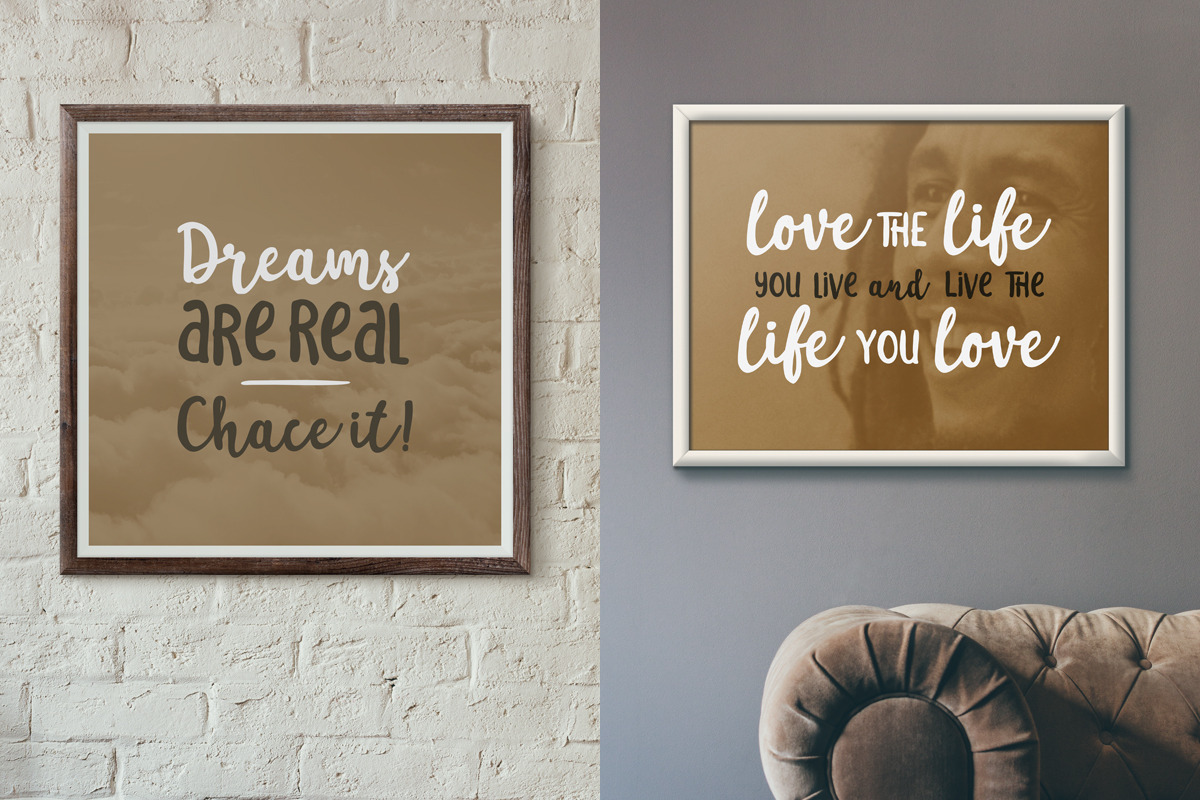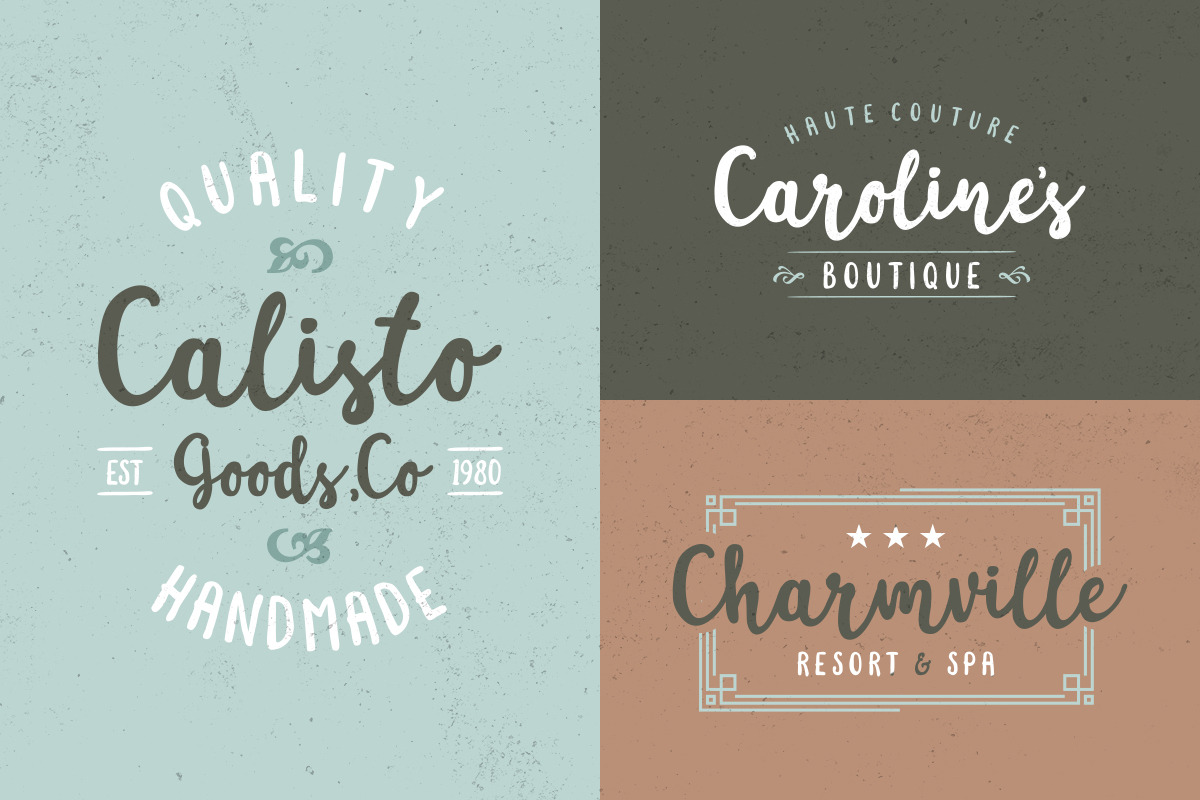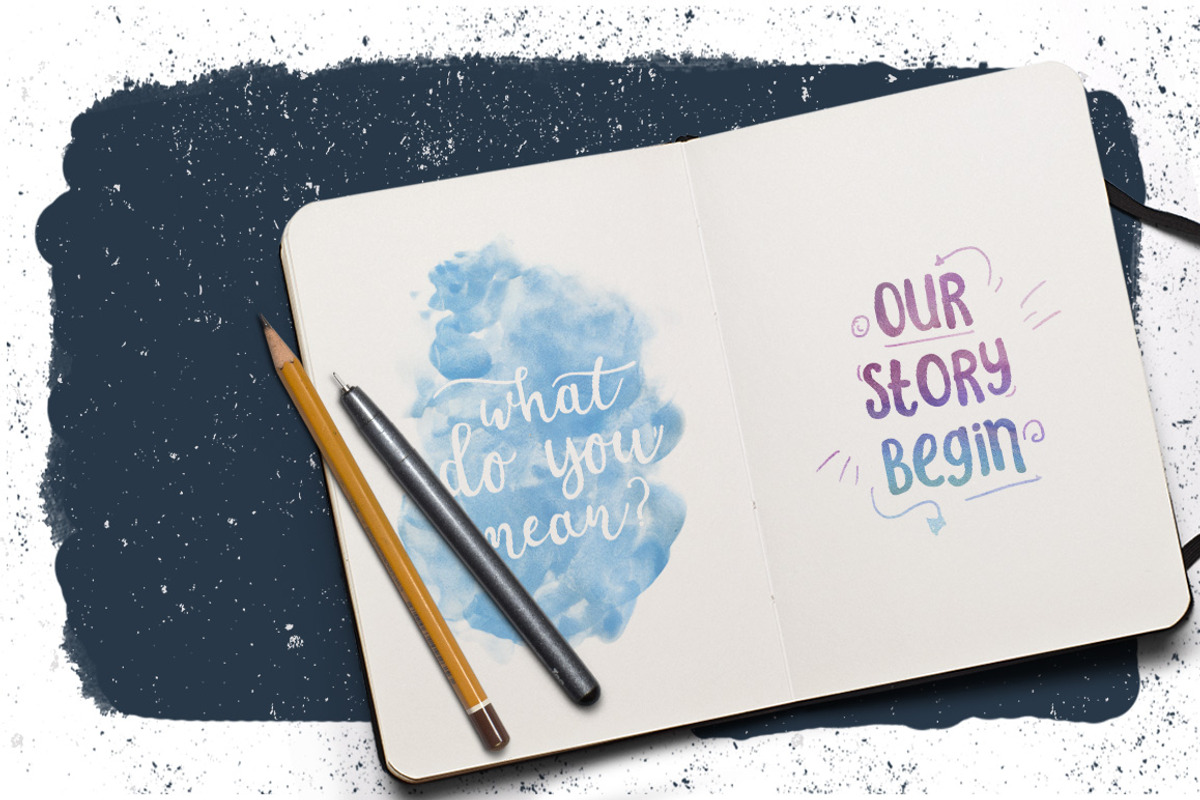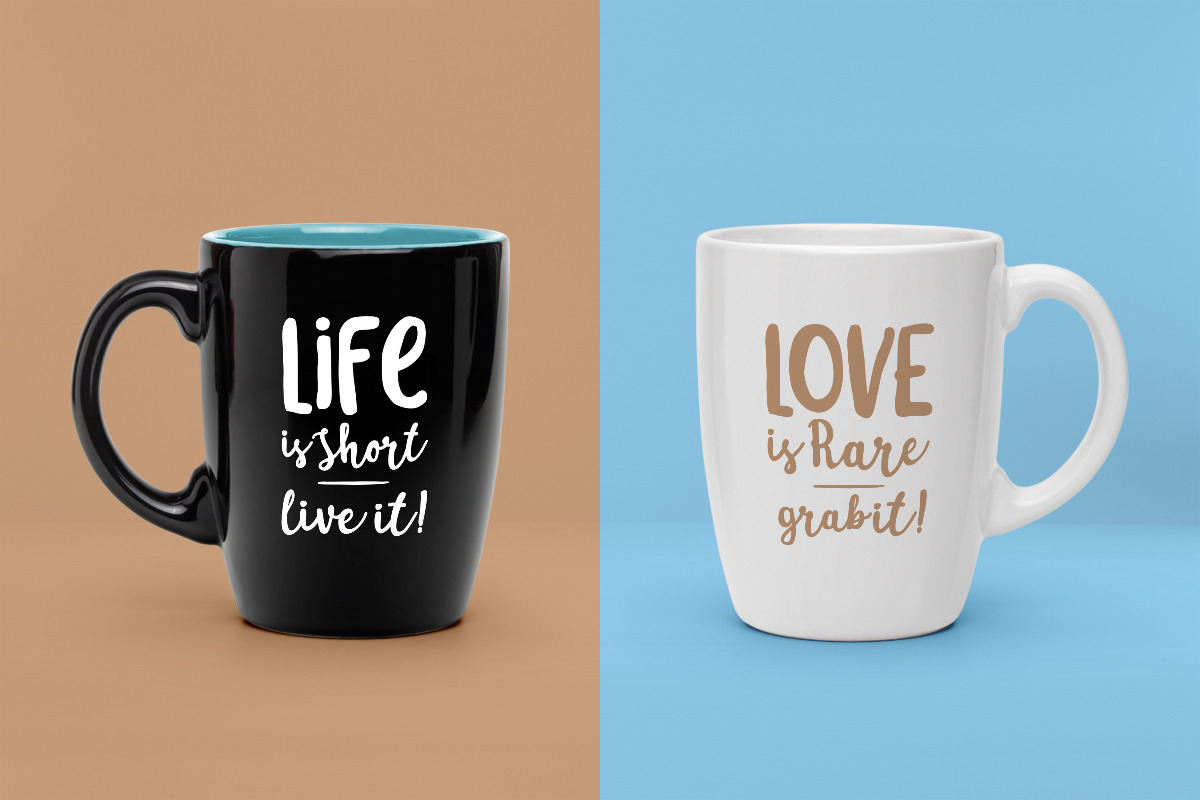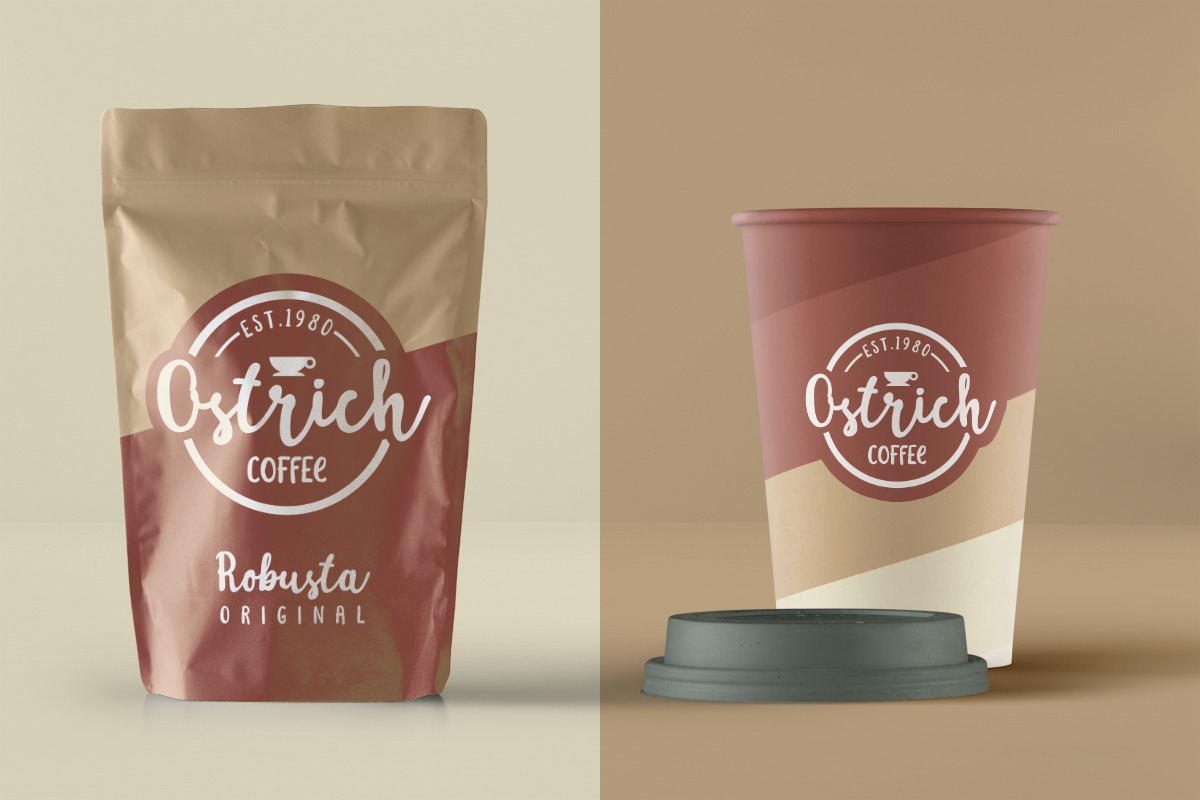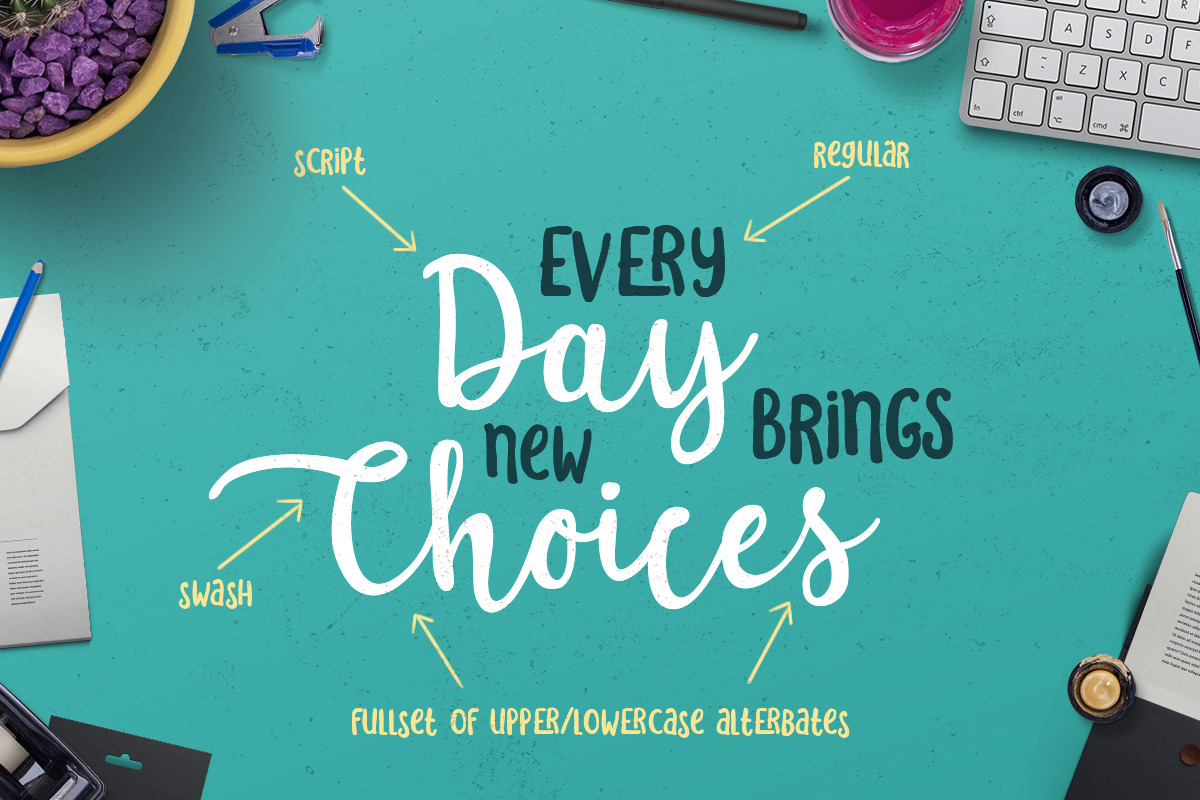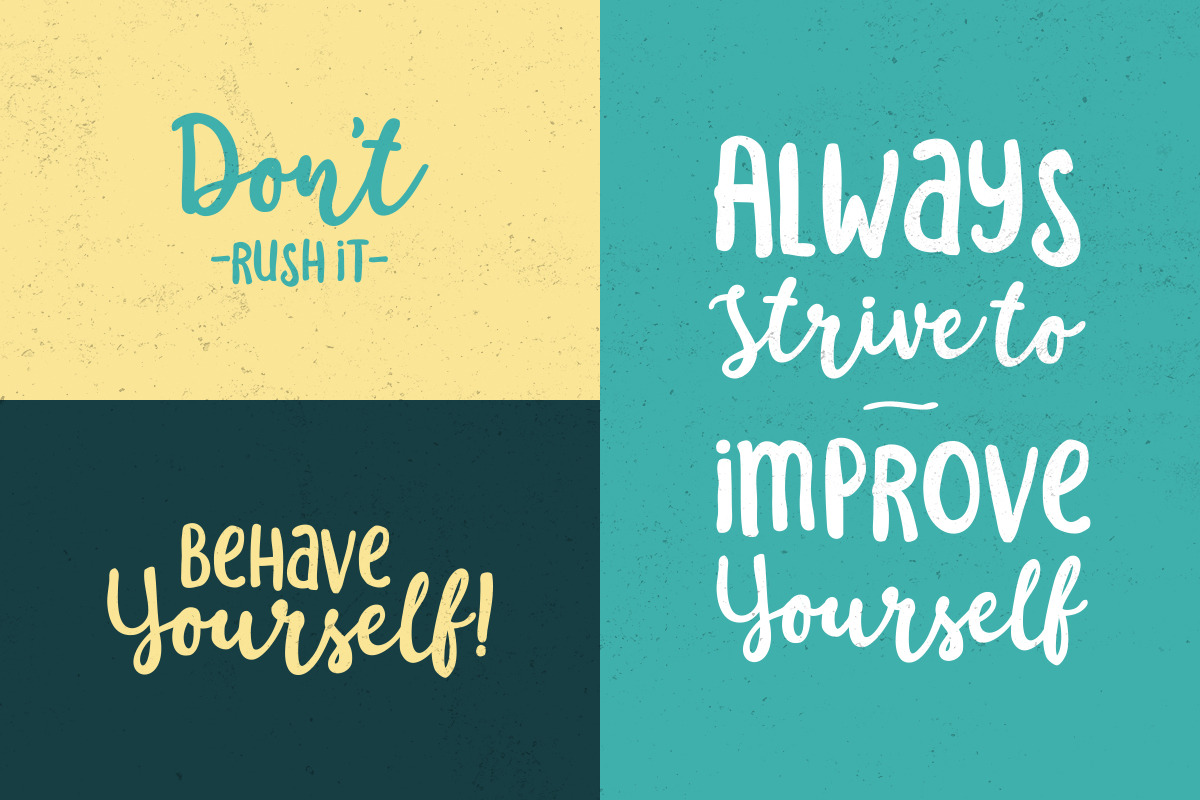
Sakra font duo (30% OFF) by Letterhend Studio is a font selected for branding, posters, packaging, typography.
- Sakra!fontduo includes upper & lowercase characters, punctuation, numerals, and multilingual support.
- It also has many open type alternates and ligatures.